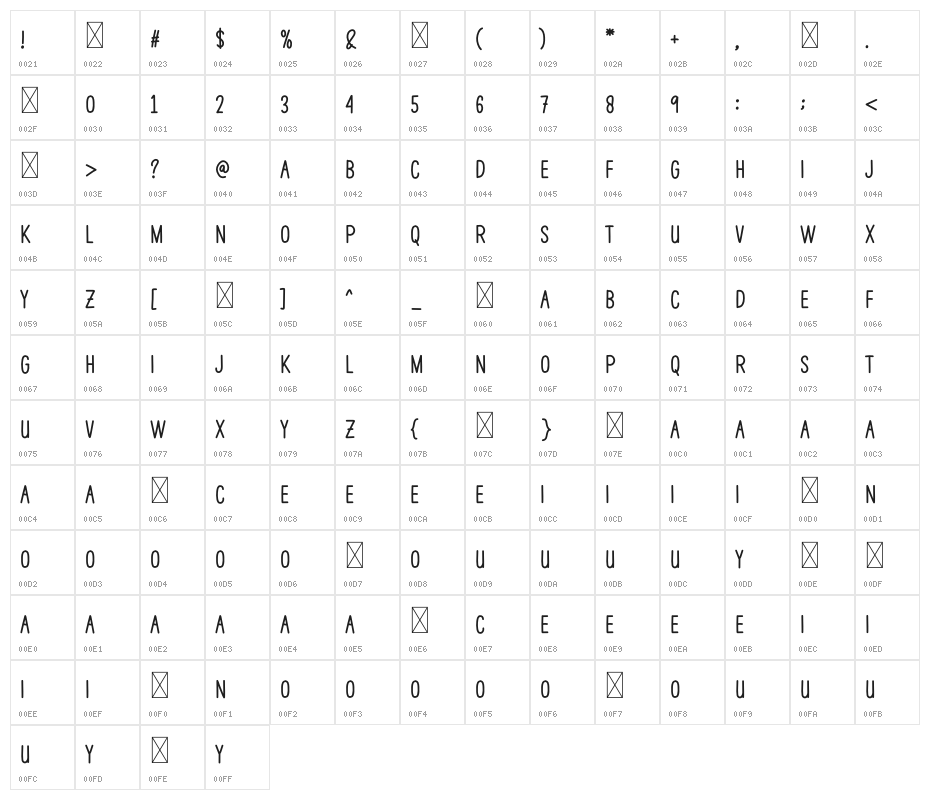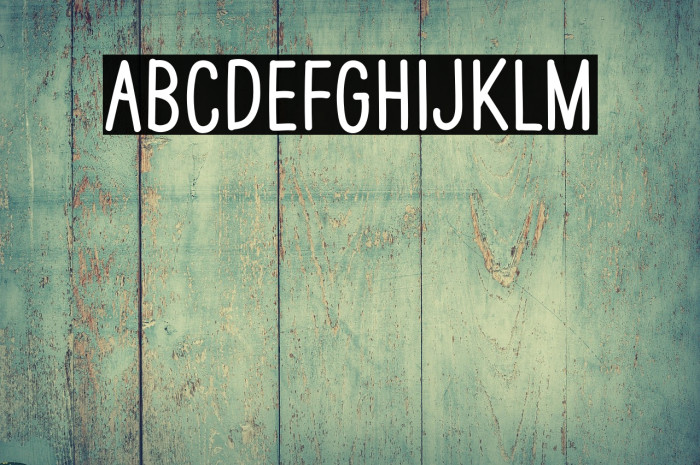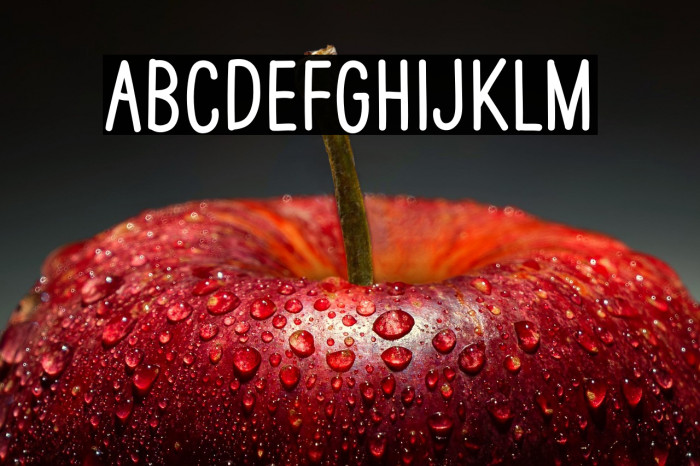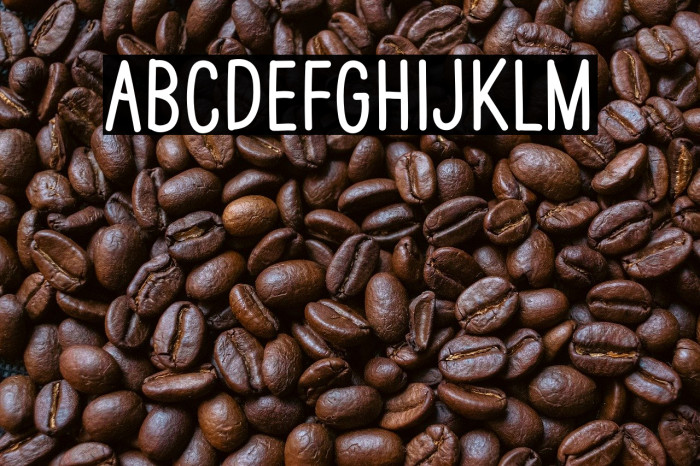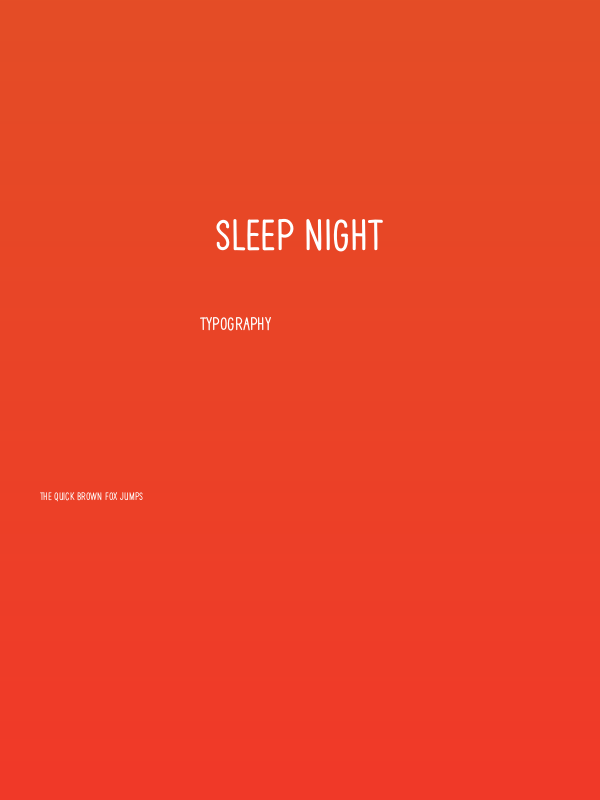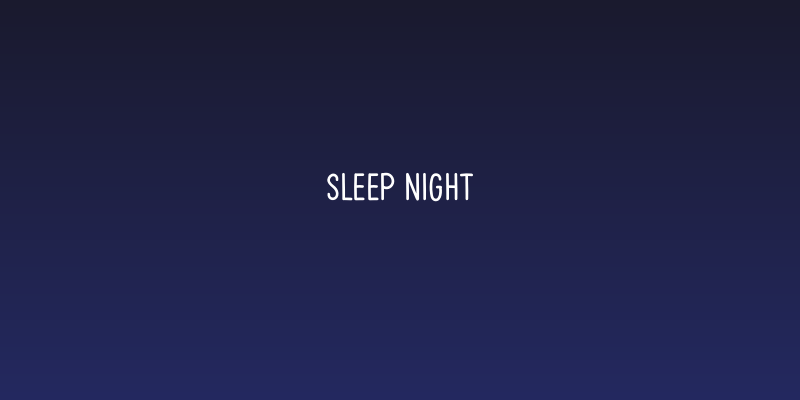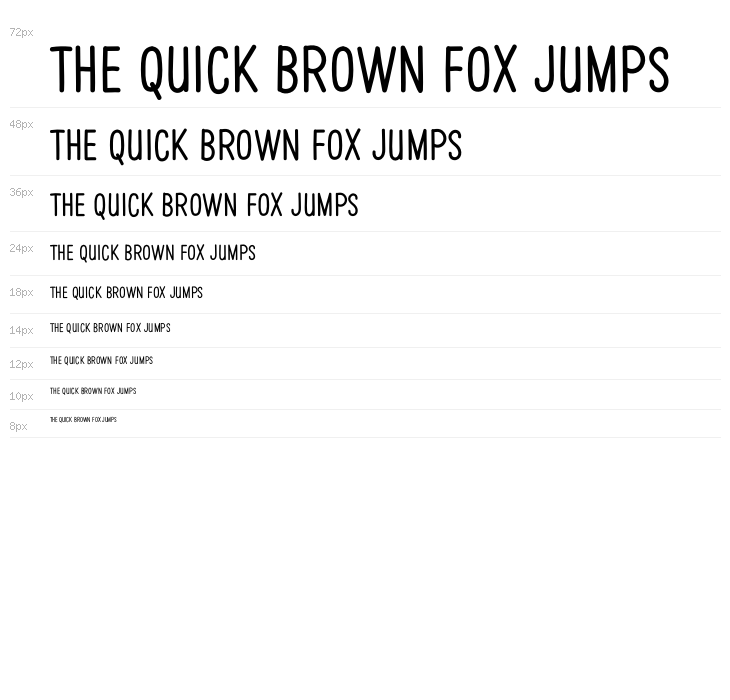
Sleep Night Font
Sleep Night Description
A playful, rounded sans-serif typeface with uniform stroke width, slightly condensed letterforms, and a friendly, informal appearance. The characters have a hand-drawn quality, with consistent height and moderate spacing.
| Overall Style | Handwritten, Casual, Modern |
| Use Case | Headlines, Posters, Informal branding, Children's materials |
| Proposed Projects | ChildrenΓ’β¬β’s books, casual branding, posters, greeting cards, social media graphics. |